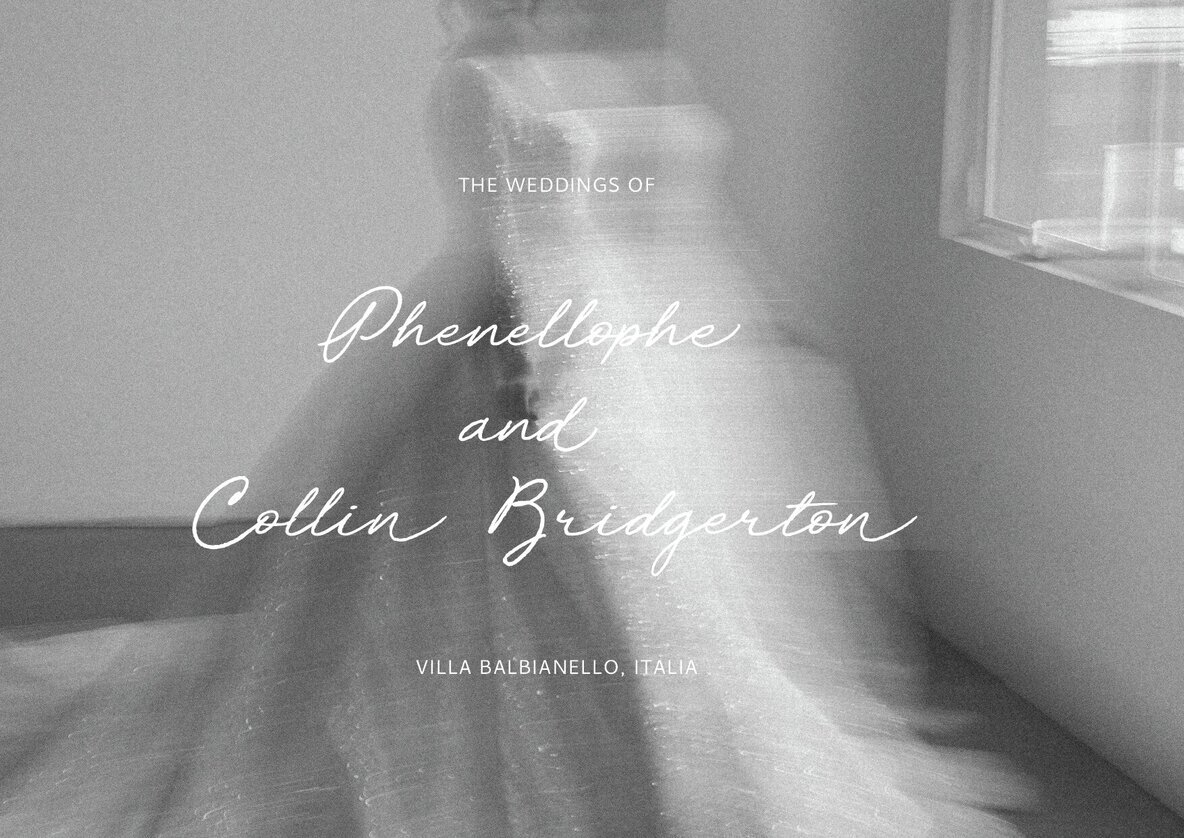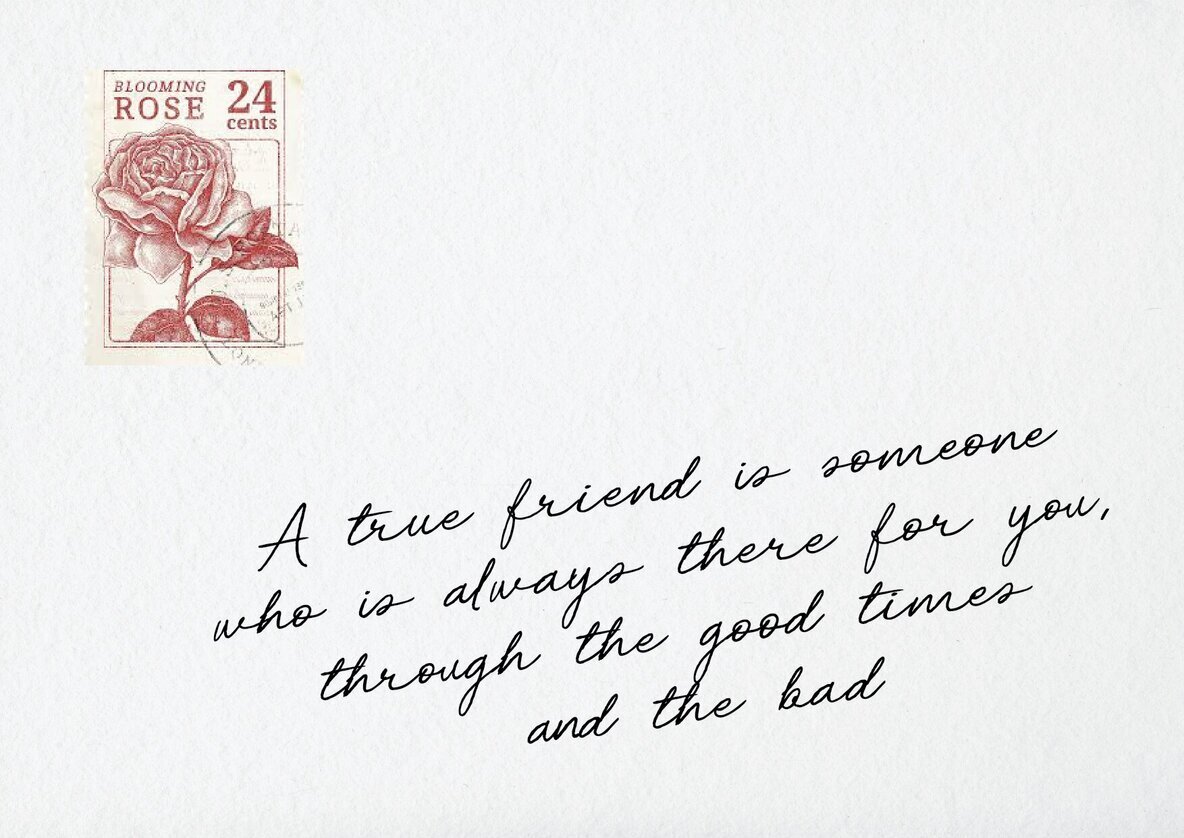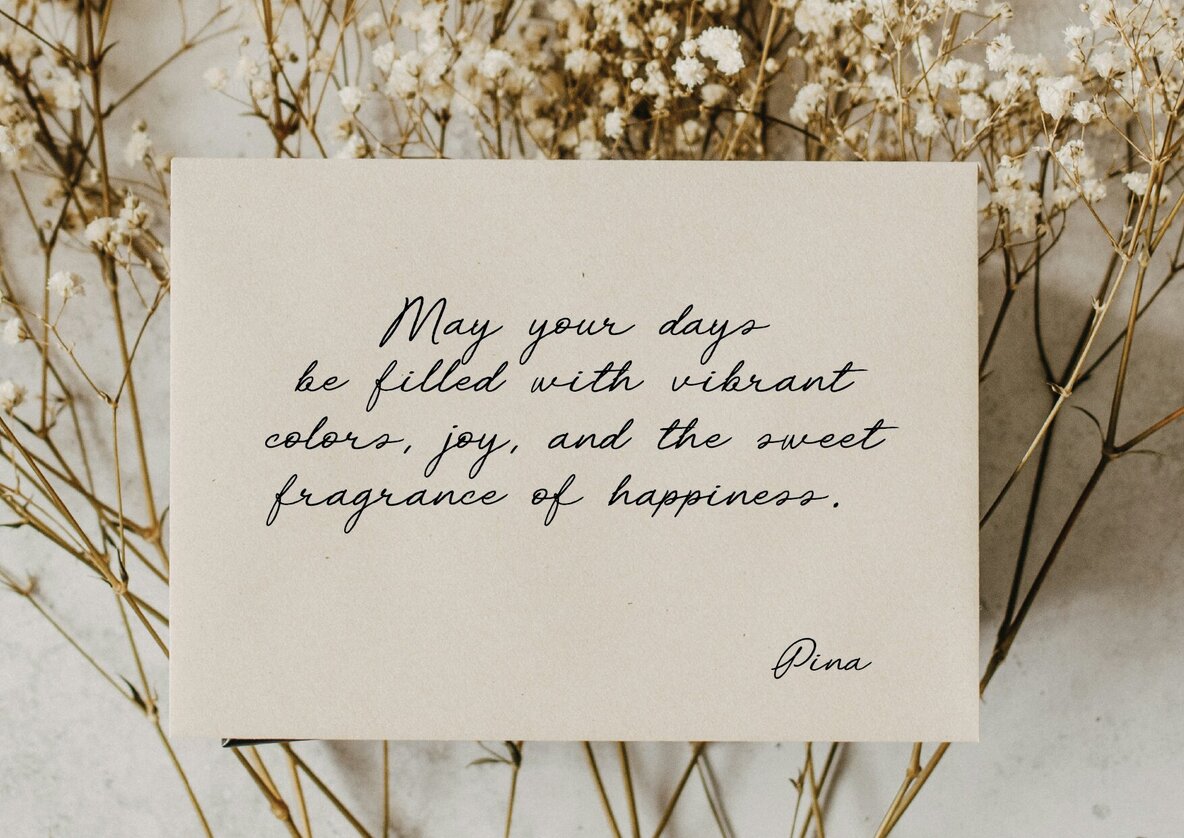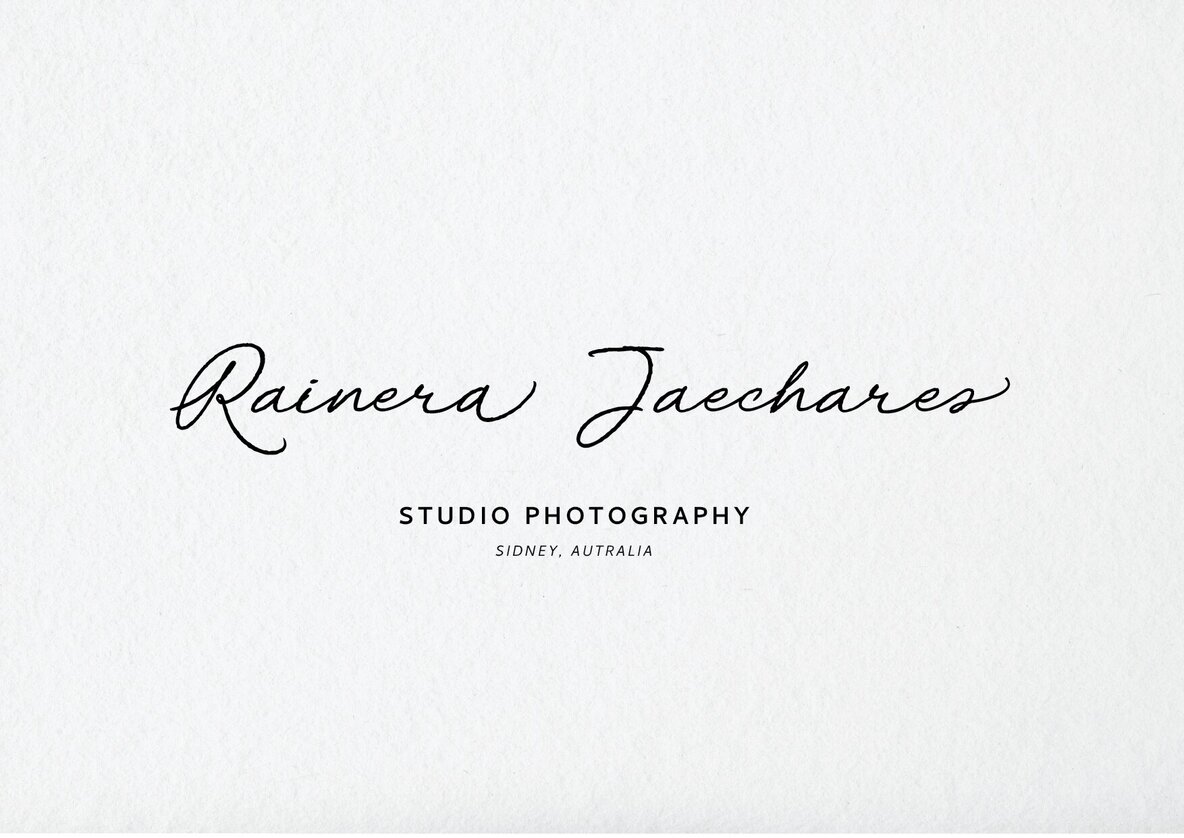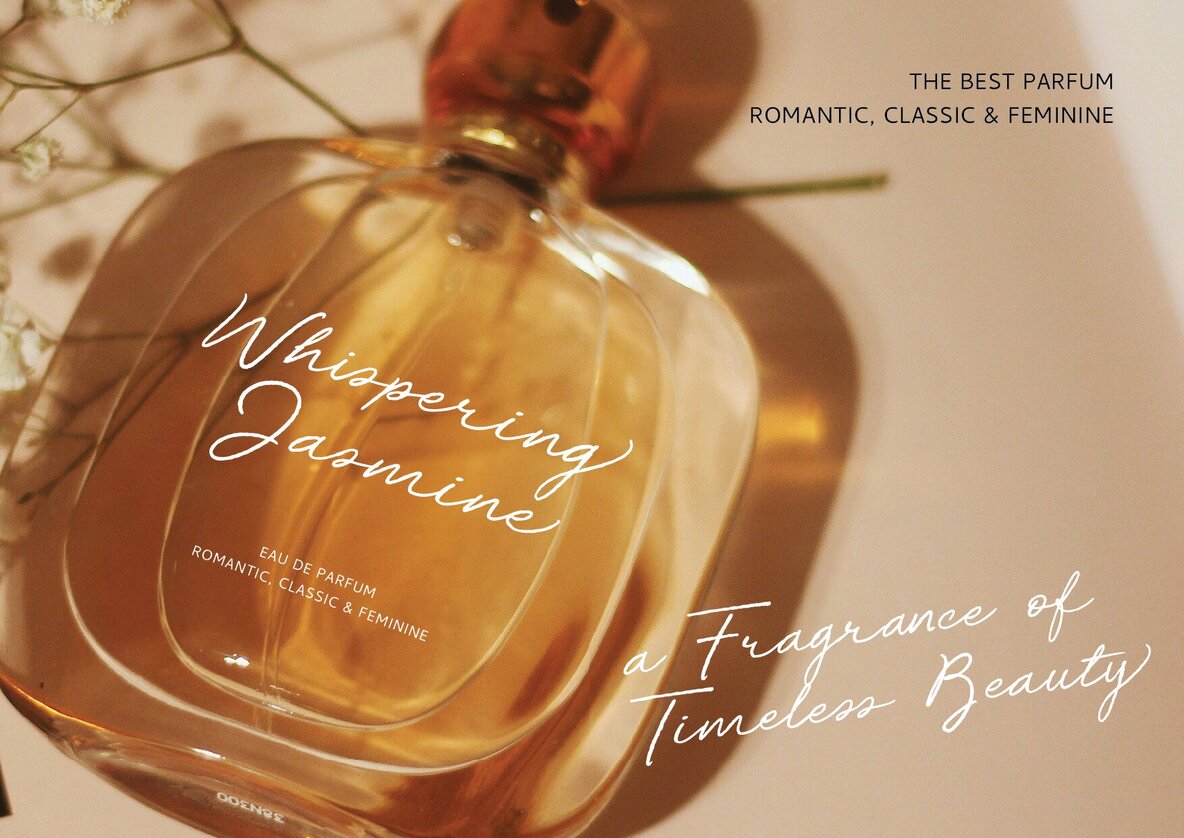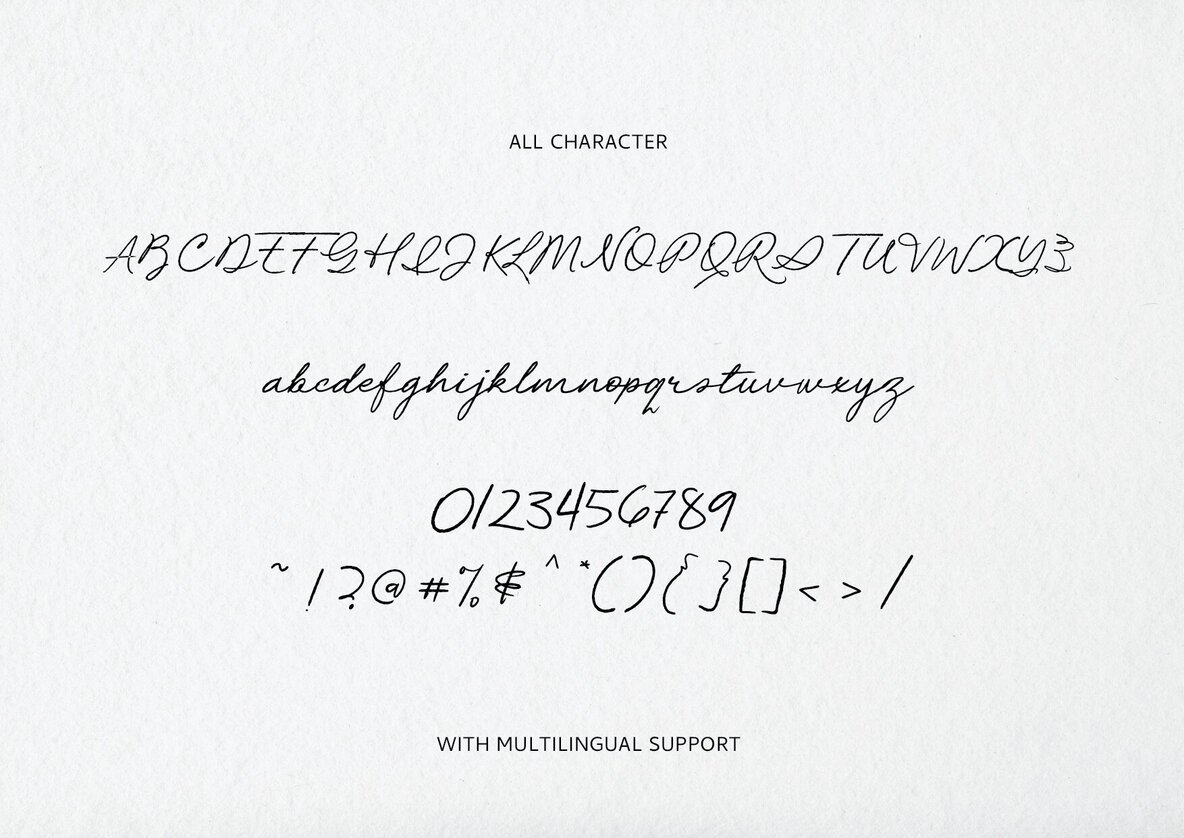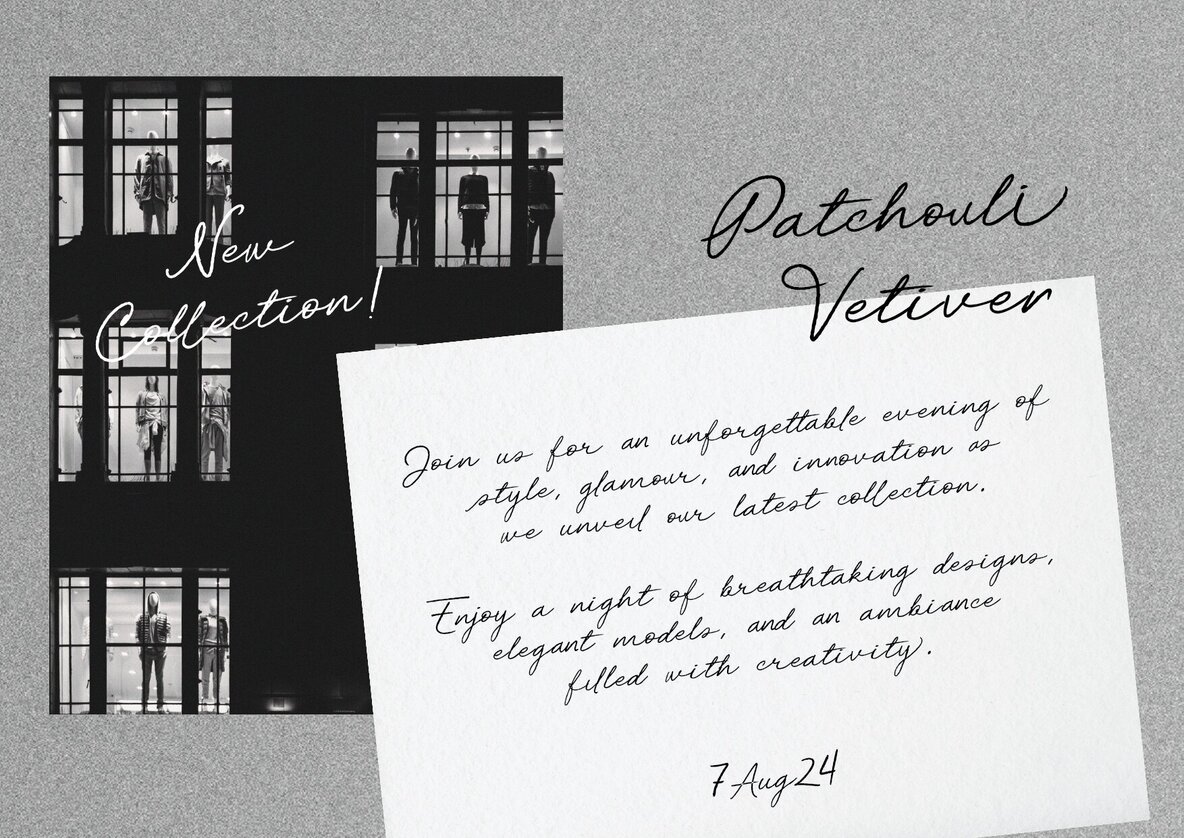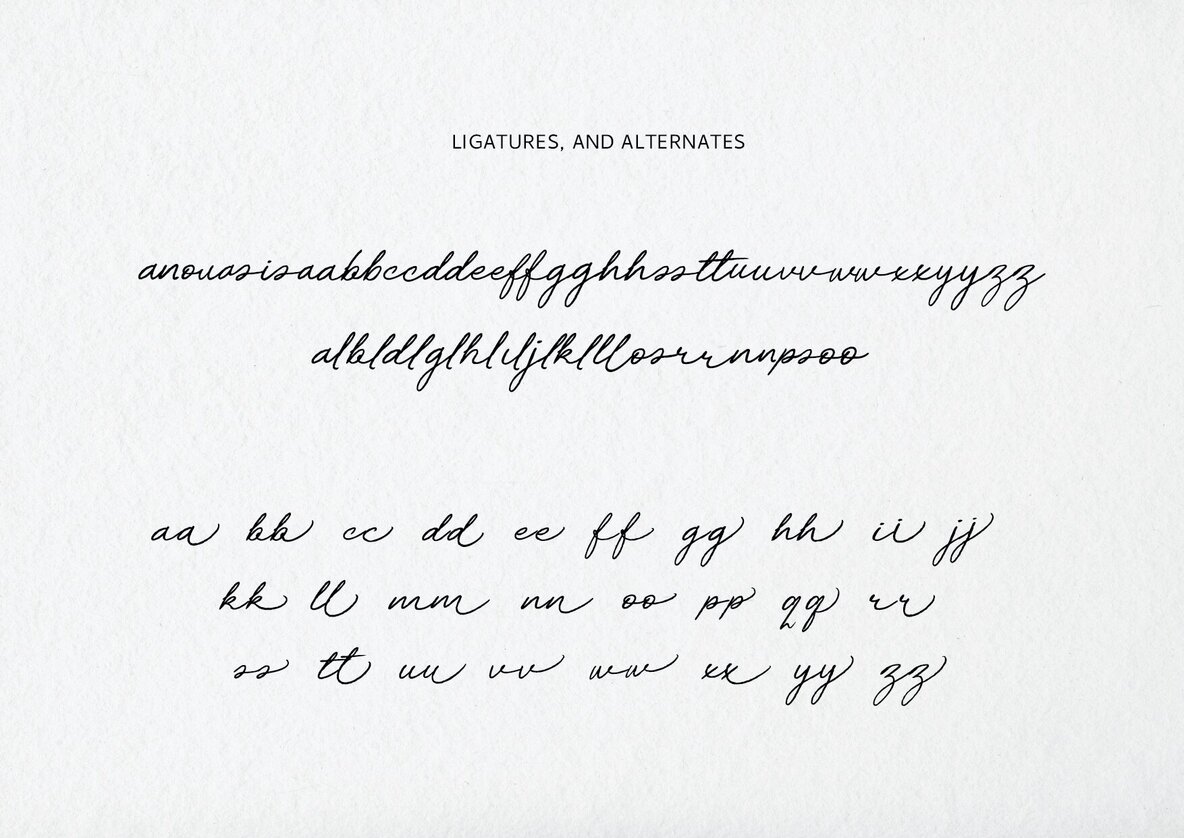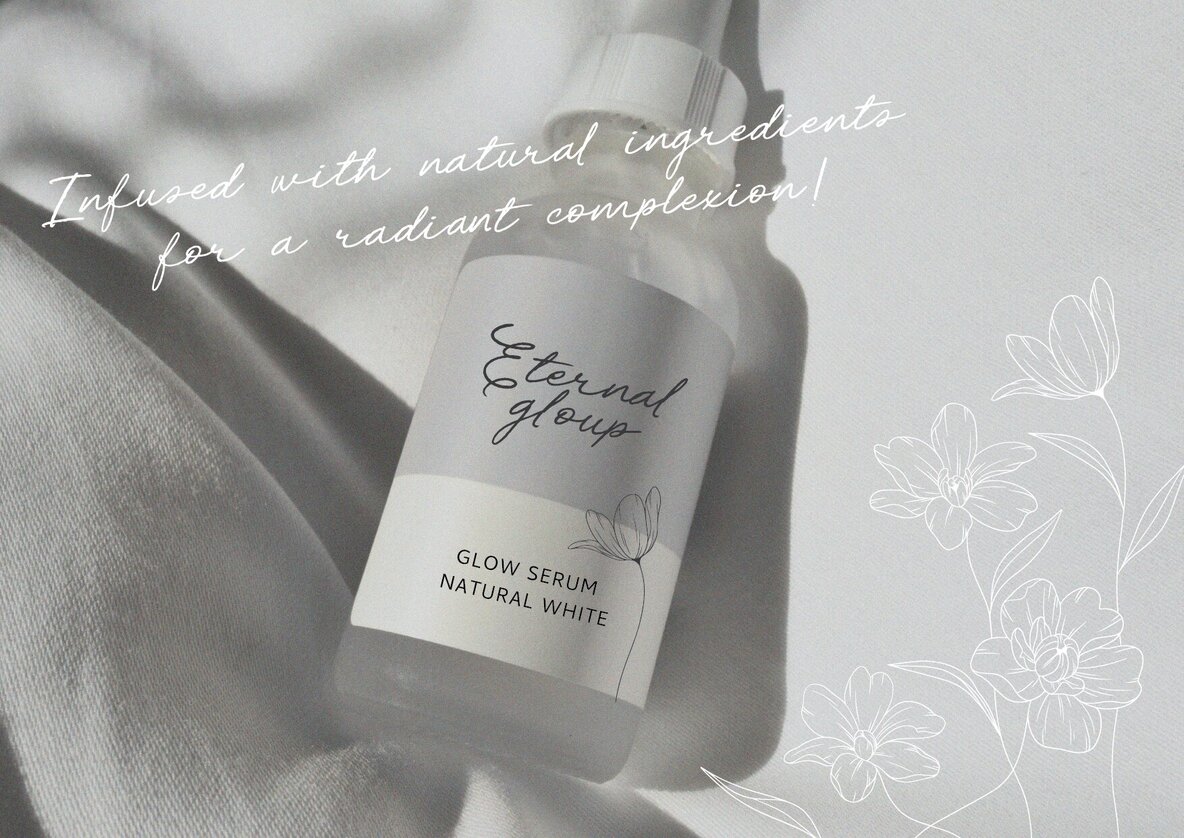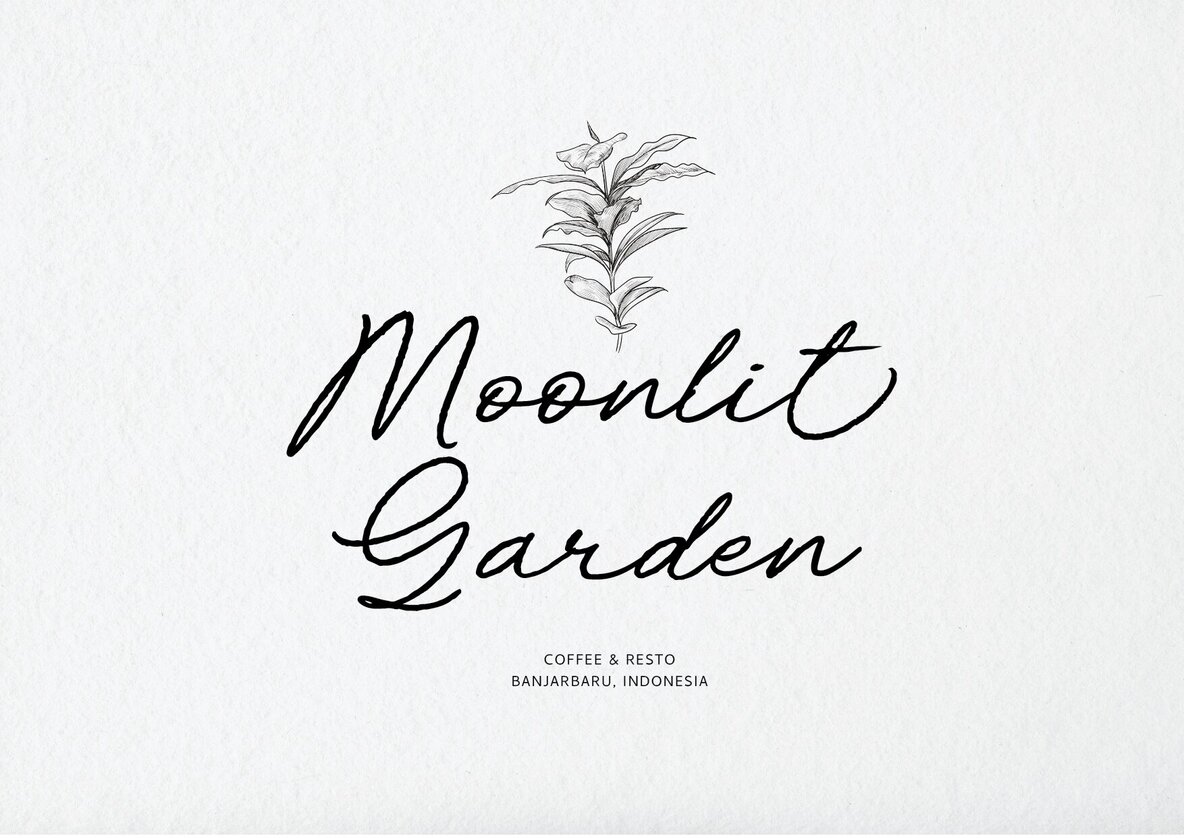
Chleo Phenelope Font
Chleo Phenelope Regular
Chleo Phenelope is a beautifully crafted handwriting font, designed to bring elegance and sophistication to your creative projects. Its unique style is perfect for adding a personal touch to any design, enhancing the visual appeal and conveying a sense of authenticity and style.
This font includes three alternative styles, allowing flexibility and creativity in your typography. Additionally, it features ligatures to mimic the fluidity of actual handwriting, making your projects visually appealing and realistic. Whether you're working on branding, invitations, or digital designs, Chleo Phenelope offers versatility and charm that will enhance your creative endeavors.